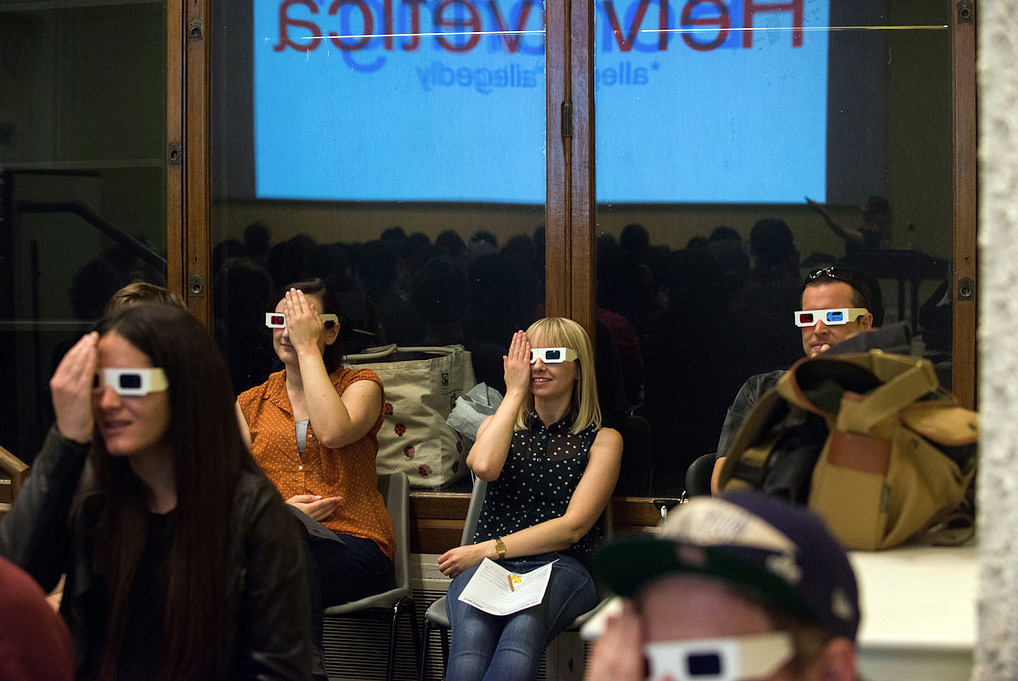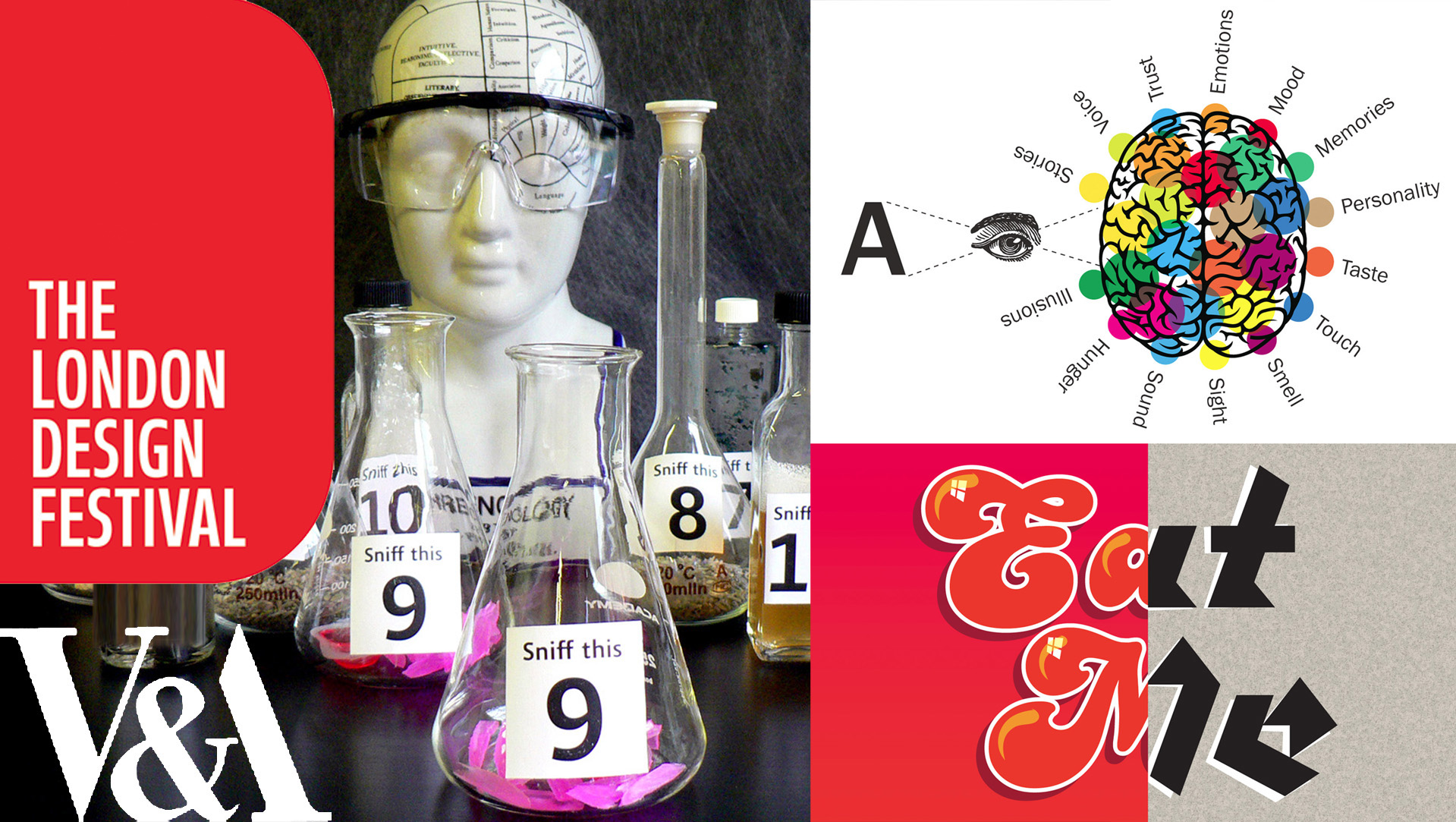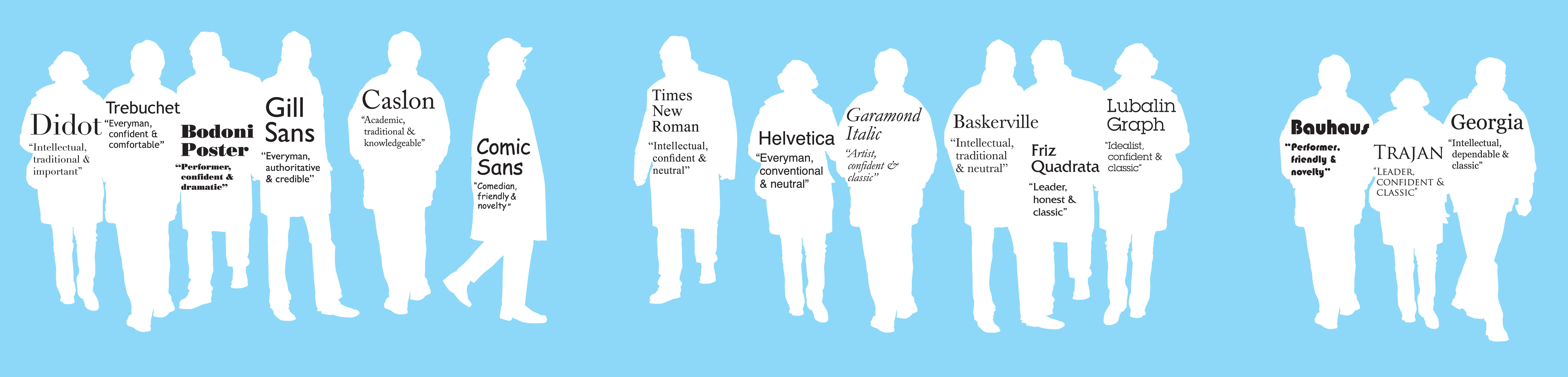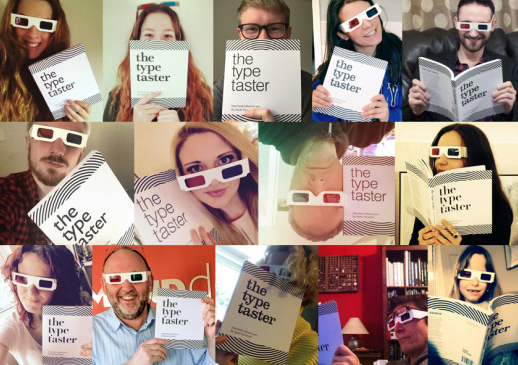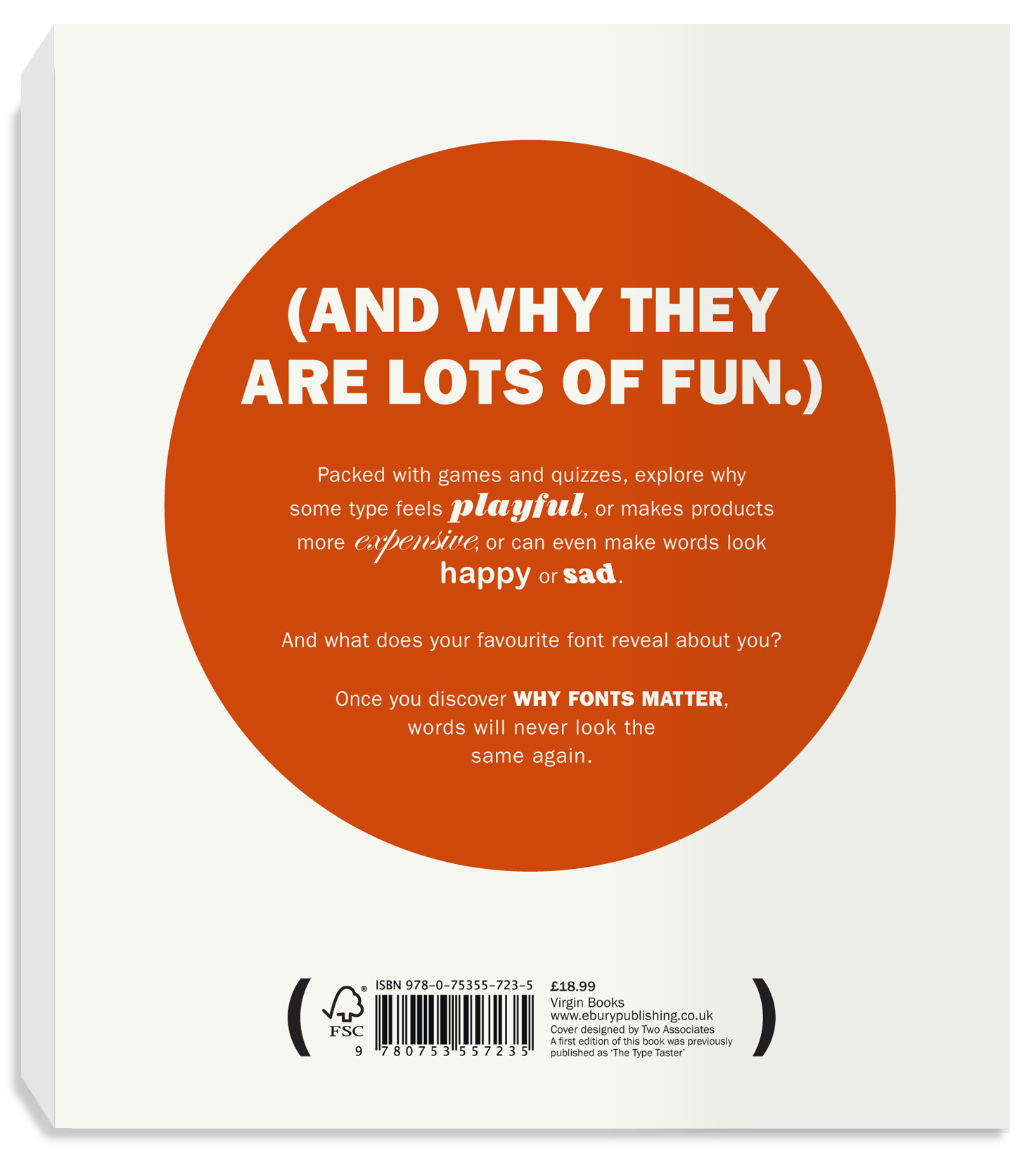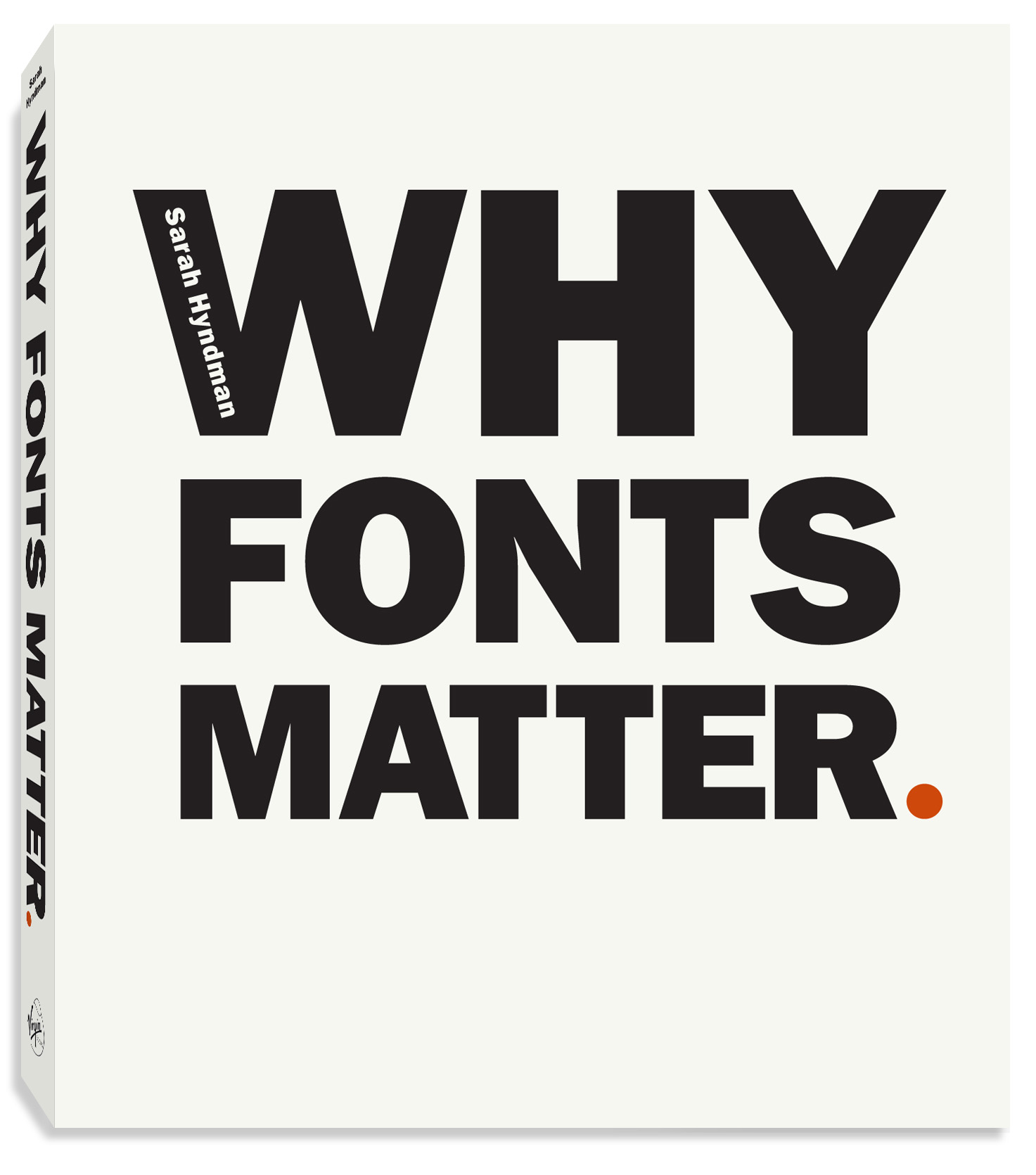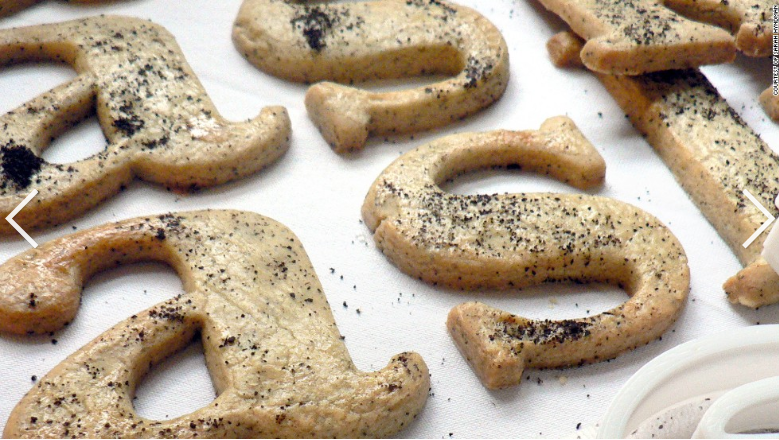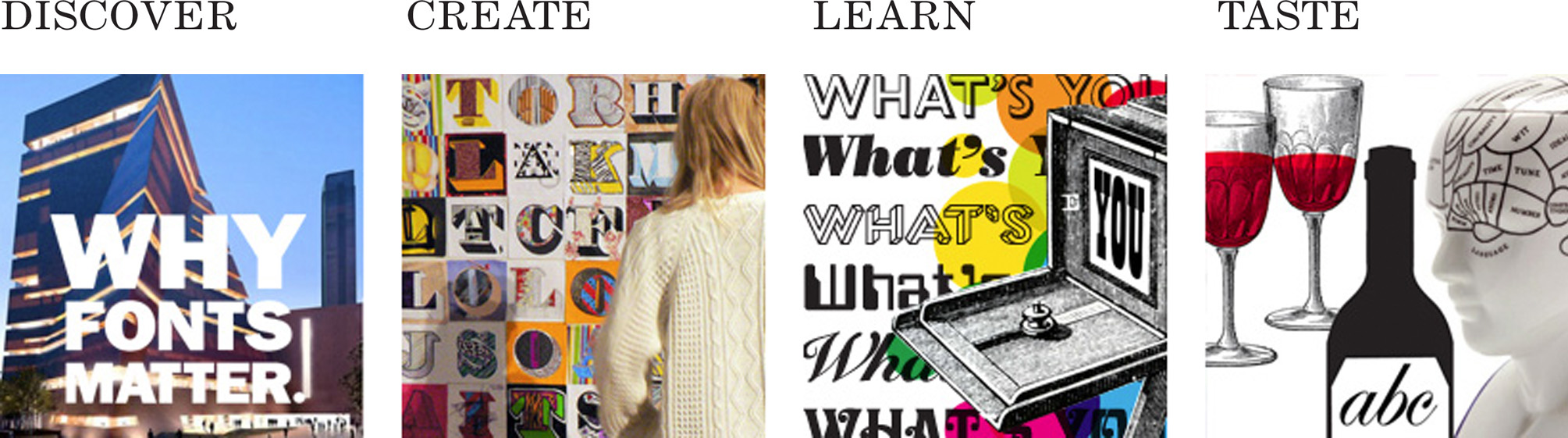
Typography is changing, are you ready?
Typography is changing. Two decades dominated by sans serif typefaces are coming to an end, which type designer Charles Nix describes as “the waning end of a supertrend”. Are you (and your team) ready for this new and exciting typographic landscape?
It’s an exciting time to explore how type reflects culture right now. I was delighted to run online workshops recently with the inspiring type designers at international type foundry Monotype. This was such a brilliant opportunity for all of us to compare notes as we explored the themes and trends we’ve been seeing and chatted about what we think is coming next.
“I loved the event. I know we are trying to make do with the pandemic situation, but I truly feel like this event was even more impactful and inspirational with this format than being with a bunch of people in an auditorium. Sarah was amazing.”
I think that looking at what’s changing typographically reveals the wider cultural themes of what people care about today. After a year when so much has changed, what things really matter to you today? What do you really value and/or what no longer seems important?
Are you and your team ready for the new typographic landscape and the fast-paced changes that are happening?
How to spot and decode typography trends
You can spot the trends and themes for yourself by keeping a visual diary and by following the people who are talking about what’s happening. This is a great way to future proof your typographic skills in a time of fast-paced change that trends, foresight and strategy company The Future Laboratory call “the great acceleration”.
1. Think about what’s important to you, how might this have changed over the last year?
2. When you look at what’s happening in the world, how are cultural attitudes changing?
3. Take a look at the typographic landscape of the products and services you interact with today—can you see any styles or themes becoming prominent that you might not have seen a few years ago?
4. When you think about these in context of changing cultural attitudes, do you think there are any links?
5. Are there any companies or products that you think are doing this really well (or really badly)?
6. How can you incorporated what you’ve observed into your own design process?
What’s your typographic superpower?
A meditation in typography for people with a fondness for fonts.
A fun game created by Adobe Fonts and Sarah Hyndman to showcase the new browse-by-tags feature that lets you help build the Adobe Fonts collection of tags. More fonts and tags will be added in the future.
How designing for all the senses has more impact on mood
We absorb information through all of our senses simultaneously. This speeds up our ability to judge situations and react quickly and is fundamental to our ability to recognise signals and communicate. This played a vital role in human survival when our ancestors needed to respond to danger quickly, often relying on sound or smell when it was dark and a large proportion of our genes are still devoted to detecting odours.
Font of Coincidence
This is a story of my trip to teach in India. While I was there I met up with family of friends and discovered, to my surprise, that my book cover had been redesigned by a whole class of students for their typography exam that week.
By Sarah Hyndman
Type Tasting founder Sarah is on a mission to make typography fun and engaging for everybody, not just designers. She specialises in making the complex topic accessible with originality, humour, a dash of theatre and lashings of audience participation. She delivers interactive talks and events with games and demonstrations that inform, entertain and challenge your preconceptions.
Questions being explored:
• Can a font make a product appear more expensive?
• Do fonts have recognisable personalities?
• Can a typeface alter the taste of what you eat?
• Can a font alter the mood of what you read?
• When is a Serif a better choice than a Sans Serif typeface, why?
“You’ll never look at fonts in the same way again.” Hannah Stewart
“As bizarre as it sounds, my job is to match up the bottles and fonts using only my sense of smell.” Jake Wallis Simons, CNN